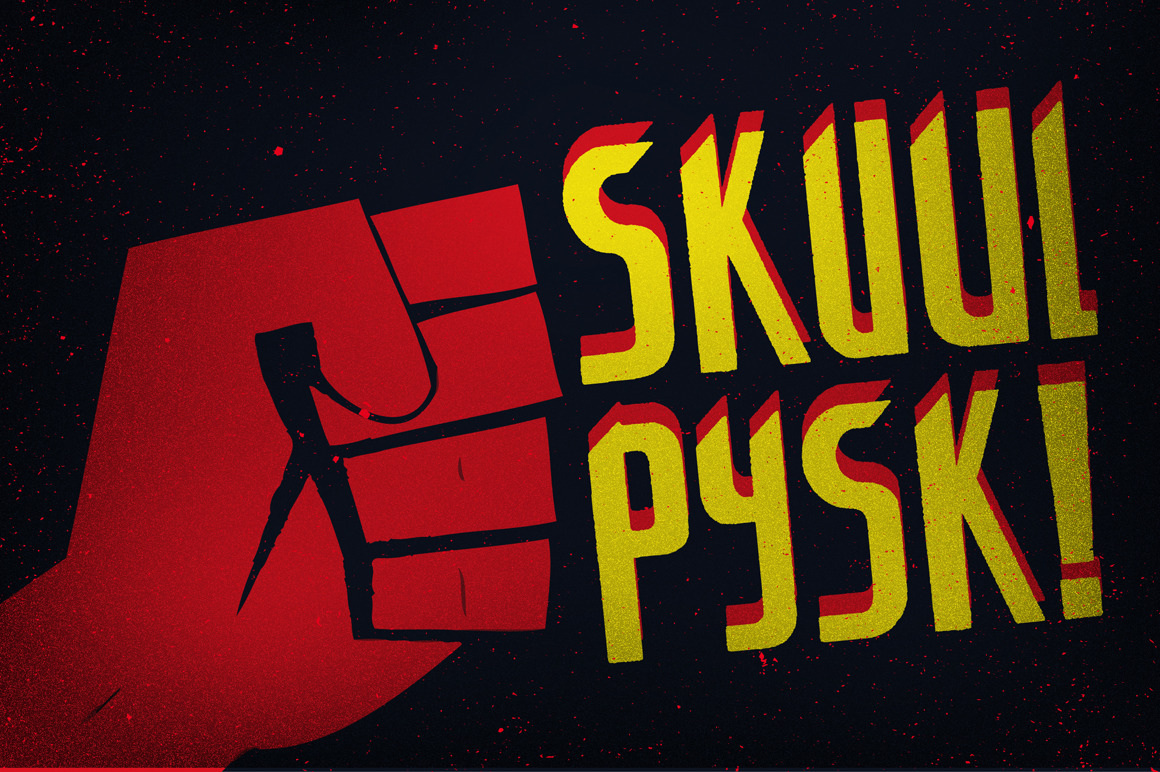
The inspiration for the designing of the font Skuul was Letraset in 1981. Font Skuul, for each character has three alternative characters with their automatic replacement.